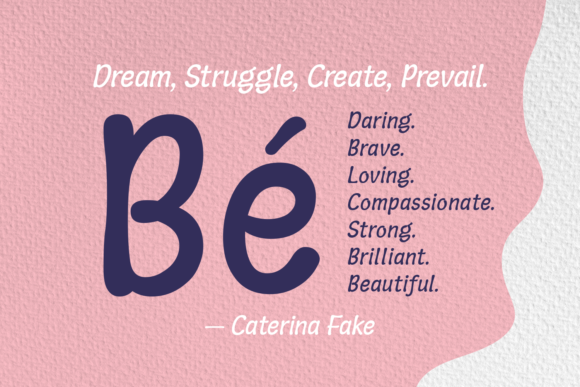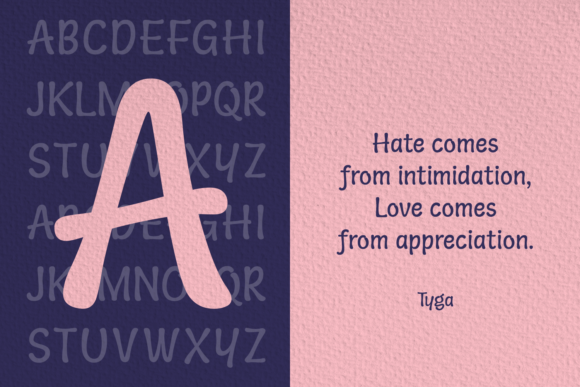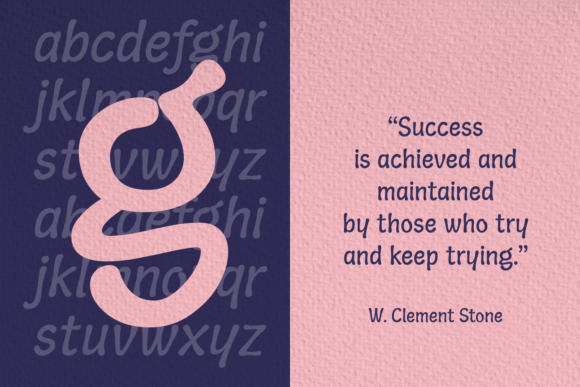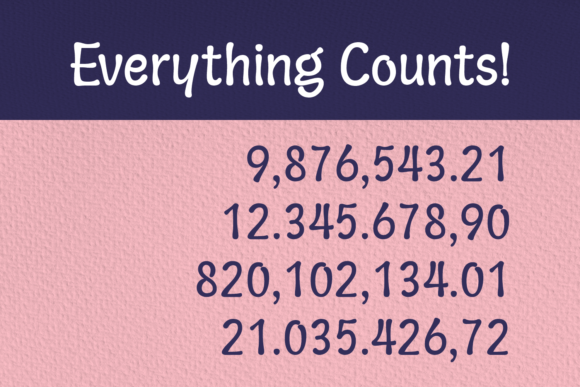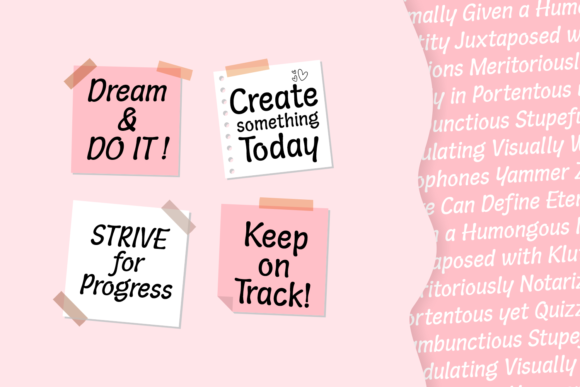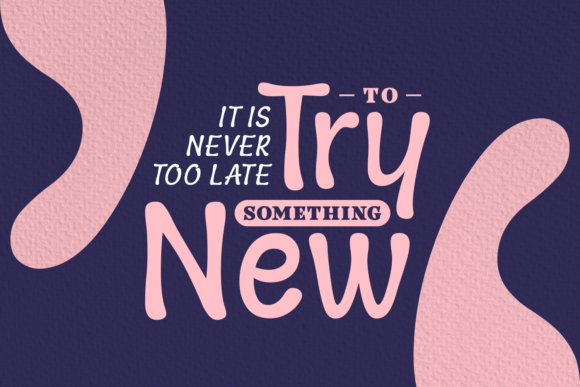
About Trying Again Font
Introducing “Trying Again,” a neat and chic handwritten font that combines readability with a touch of elegance. This font is designed to bring a polished and sophisticated look to your creative projects, making it a versatile choice for various design needs.
Trying Again features clean and well-defined characters that are easy to read, ensuring that your message is conveyed with clarity. The cursive style adds a touch of personality and flair, making it suitable for a wide range of applications.
Whether you’re designing invitations, crafting quotes, creating branding materials, or working on any other creative project, Trying Again has got you covered. Its versatility makes it a reliable choice, as it adapts effortlessly to different design contexts.
The neat and chic style of Trying Again adds a sense of refinement to your designs, while still maintaining a friendly and approachable feel. It strikes the perfect balance between professionalism and creativity, making it suitable for both personal and professional projects.
With Trying Again, you can confidently create eye-catching graphics, elegant logos, captivating social media posts, and much more. Its versatility allows it to shine across various media, from digital platforms to printed materials.
Whether you’re a seasoned designer or someone exploring their creative side, Trying Again is a font that will elevate your projects. Its neat and chic handwritten style brings a touch of sophistication to any design, making it a valuable asset in your font library.
In summary, Trying Again is a neat and chic handwritten font that combines readability with elegance. Its easily readable characters and cursive style make it suitable for a wide range of creative projects. Whether you’re designing invitations, crafting quotes, or creating branding materials, Trying Again adds a touch of refinement and creativity to your designs.